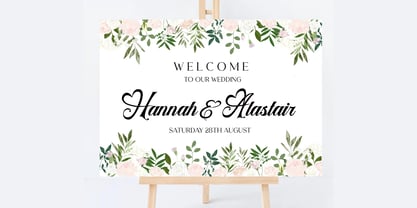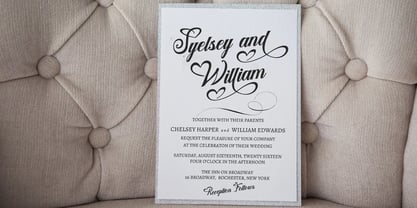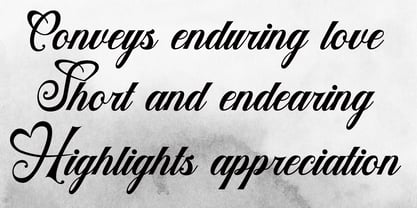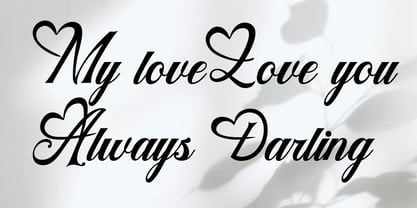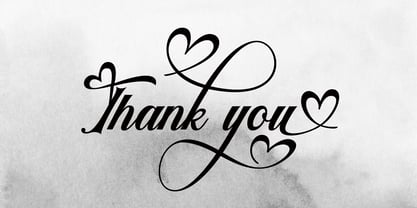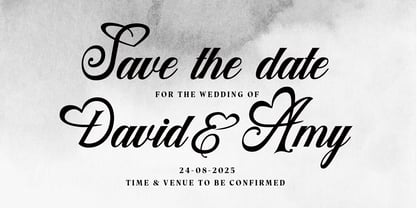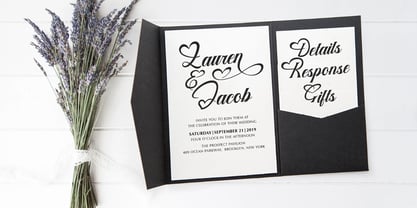
Adam Hawa
by Aqeela Studio
The Adam Hawa Font Family was designed by Muhammad Nasir and published by Aqeela Studio. Adam Hawa contains 1 styles.
Adam Hawa is a romantic script font that captures the essence of love with its flowing curves and delicate flourishes. The heart motifs integrated into the letterforms add a playful touch, making it perfect for designs that celebrate love and affection. This font is ideal for wedding invitations, romantic branding, and any project that requires a touch of elegance and charm.
Designers: Muhammad Nasir
Publisher: Aqeela Studio
Foundry: Aqeela Studio
Design Owner: Aqeela Studio